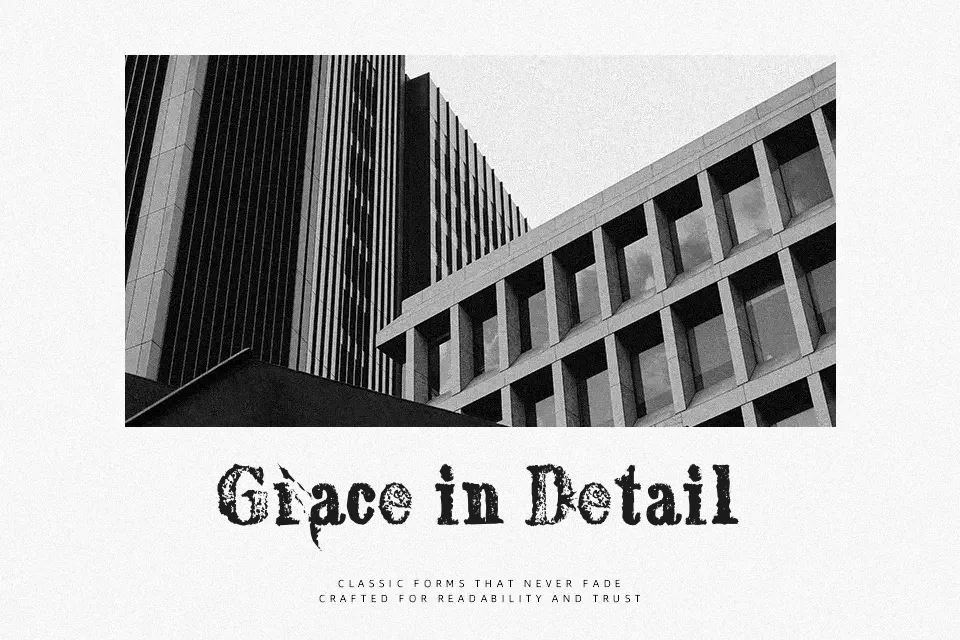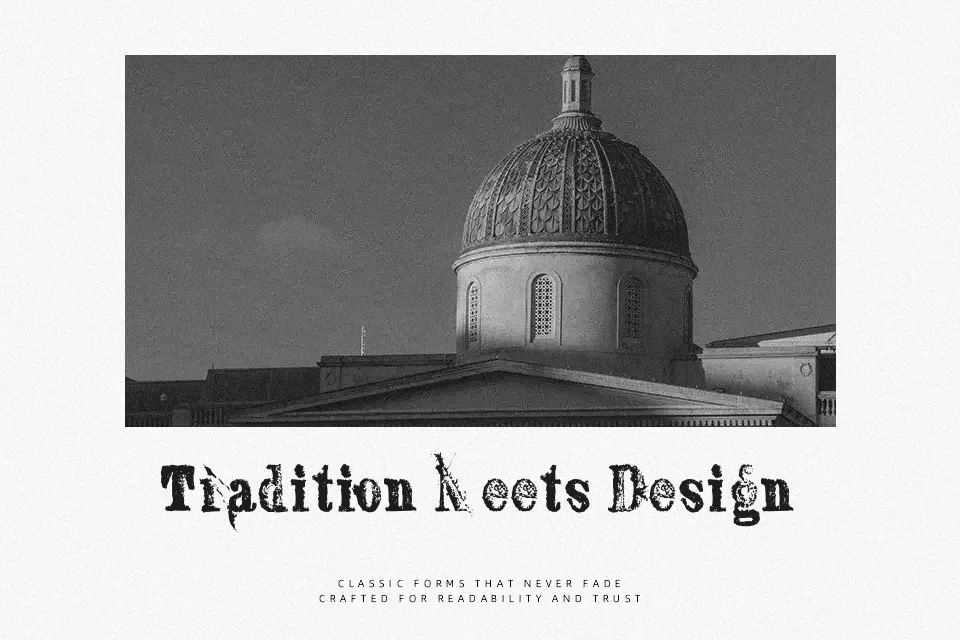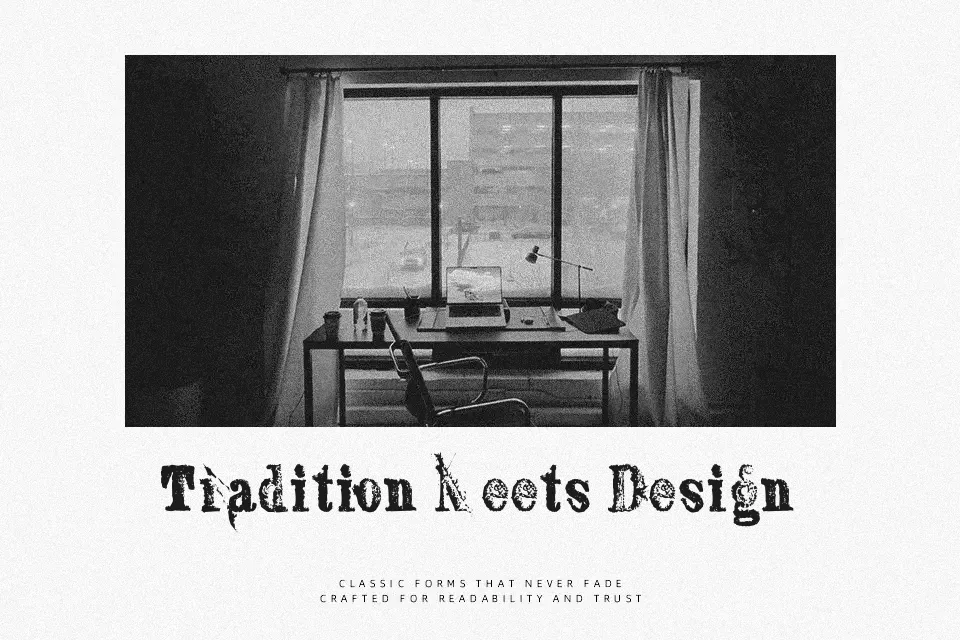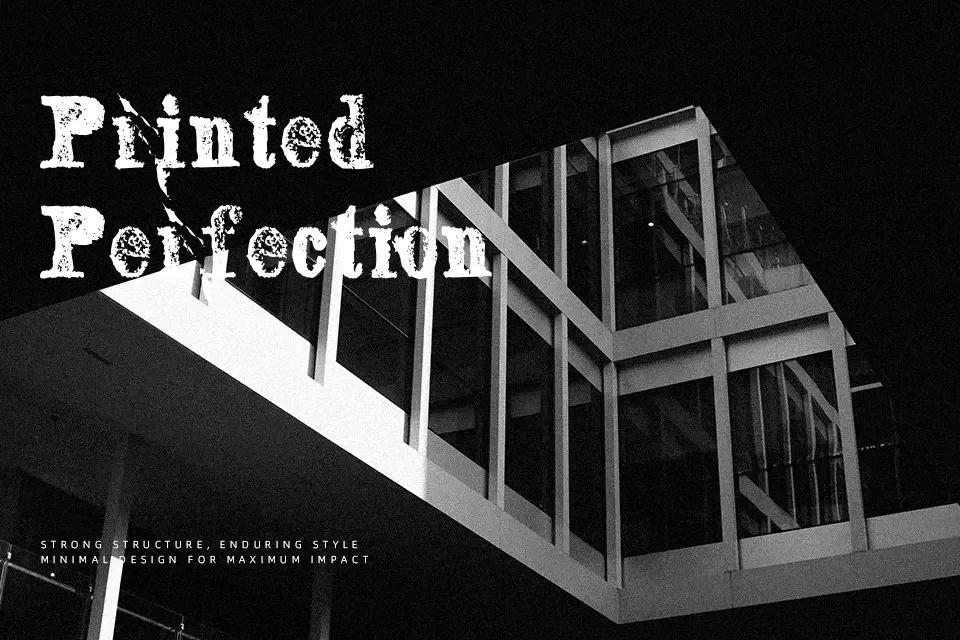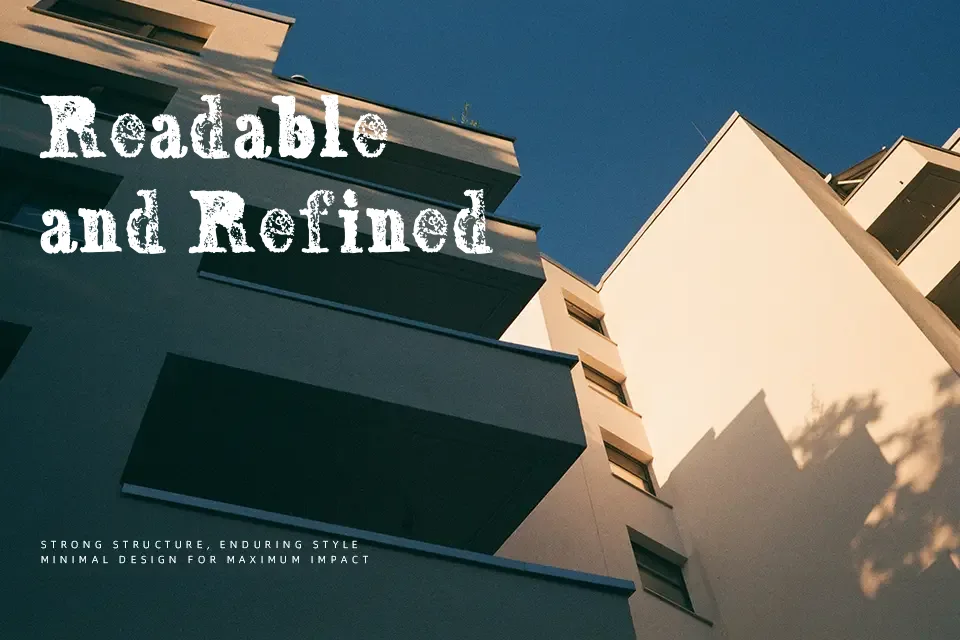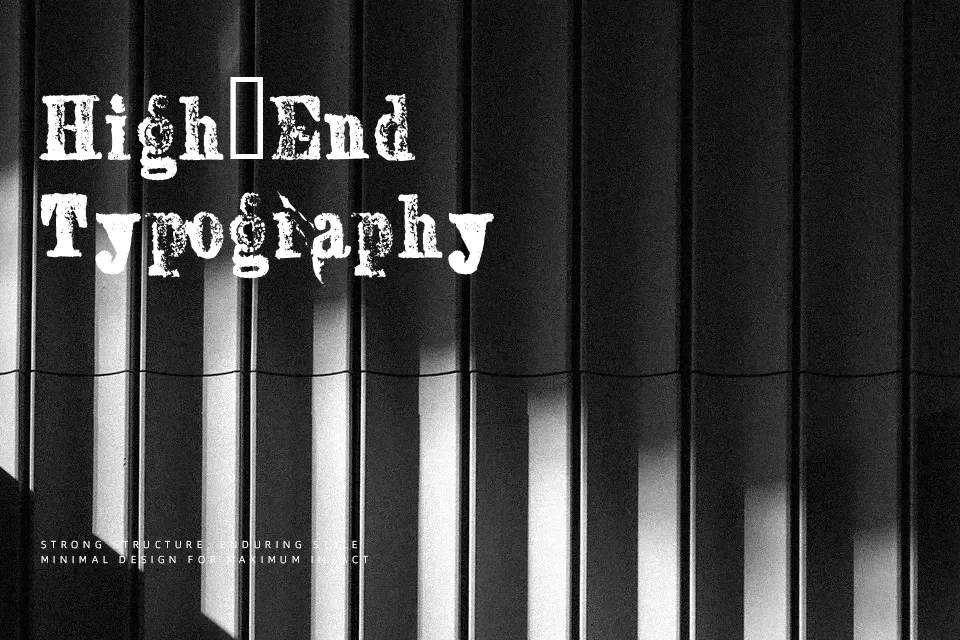
Sexton Serif Font
Designed by Polenimschaufenster
Sexton Serif Font combines traditional serif geometry with severe surface degradation, creating a deeply textured, industrial aesthetic. The letterforms display moderate contrast across primary stems and crossbars, though heavy erosion intentionally breaks down the outer contours and delicate serifs. Spacing is relatively tight yet balanced enough to keep individual glyphs recognizable at substantial scale. Because the intricate distressing adds significant visual noise, the design works best on music merchandise, edgy editorial headlines, and dramatic package designs. However, the eroded details rapidly degrade at smaller sizes, making the typeface poorly suited for dense paragraphs or multi-line body text.
– rock music festival posters
– streetwear apparel graphics
– horror novel title covers
– grunge packaging labels
– continuous body text
– mobile interface labels
– corporate annual reports
– fine print technical manuals
Perfect for gaming, headline, and music, with a dark and decorative style.